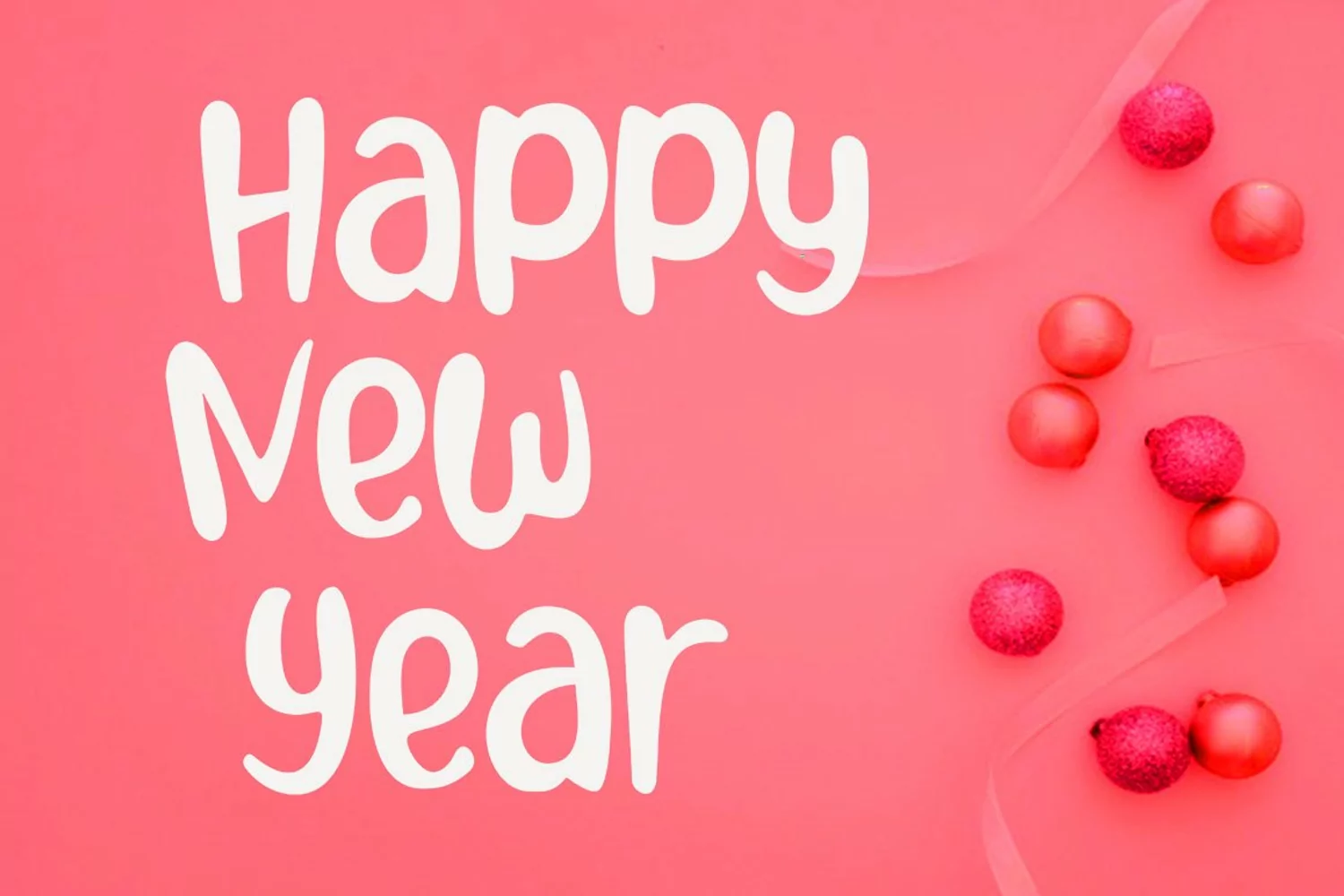
Andy Bear embodies oddity and authenticity.
This dazzling display font will turn any creative idea into a standout.
Get inspired by its fun styles, and use them to brighten up kids or school projects!